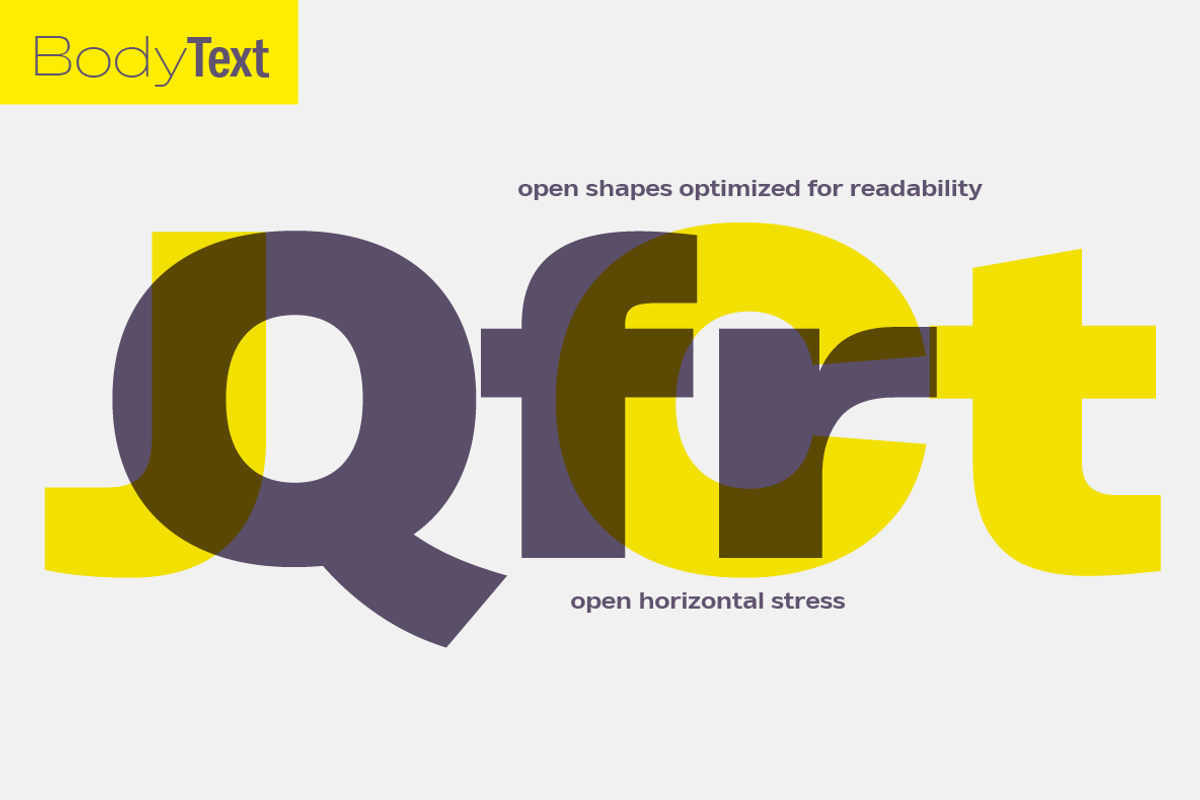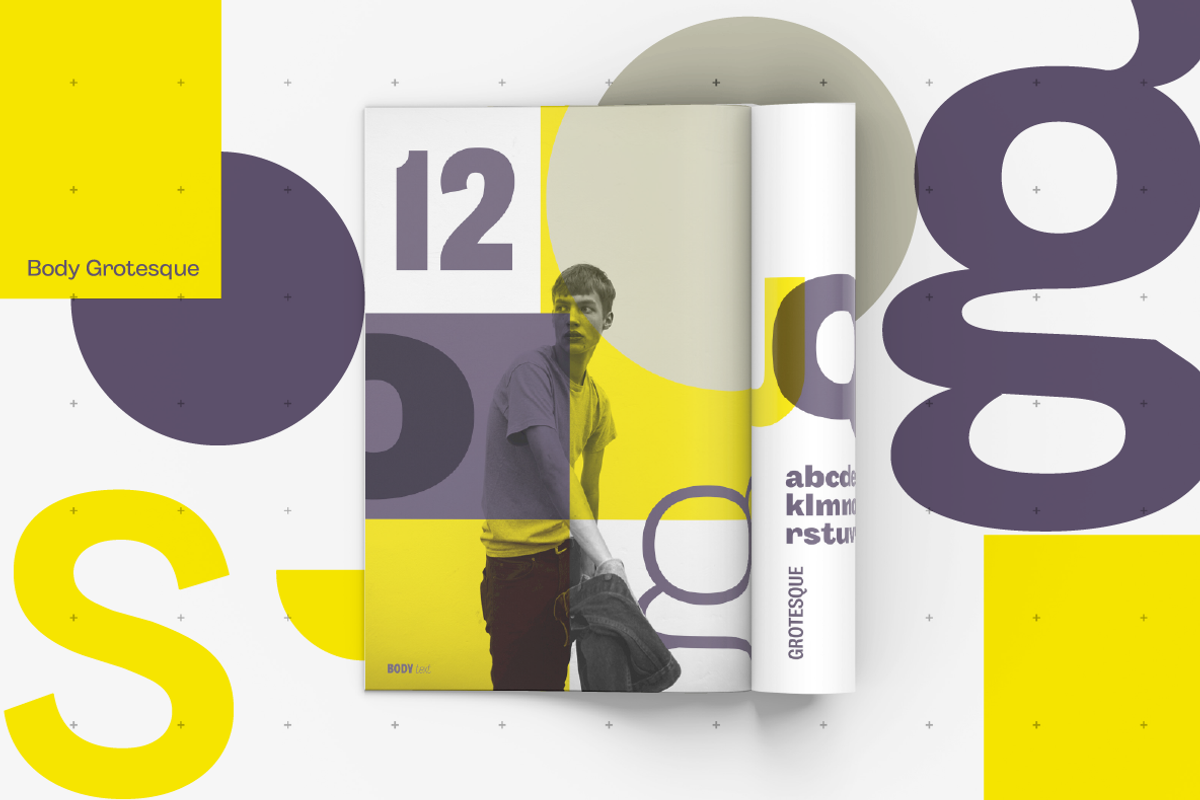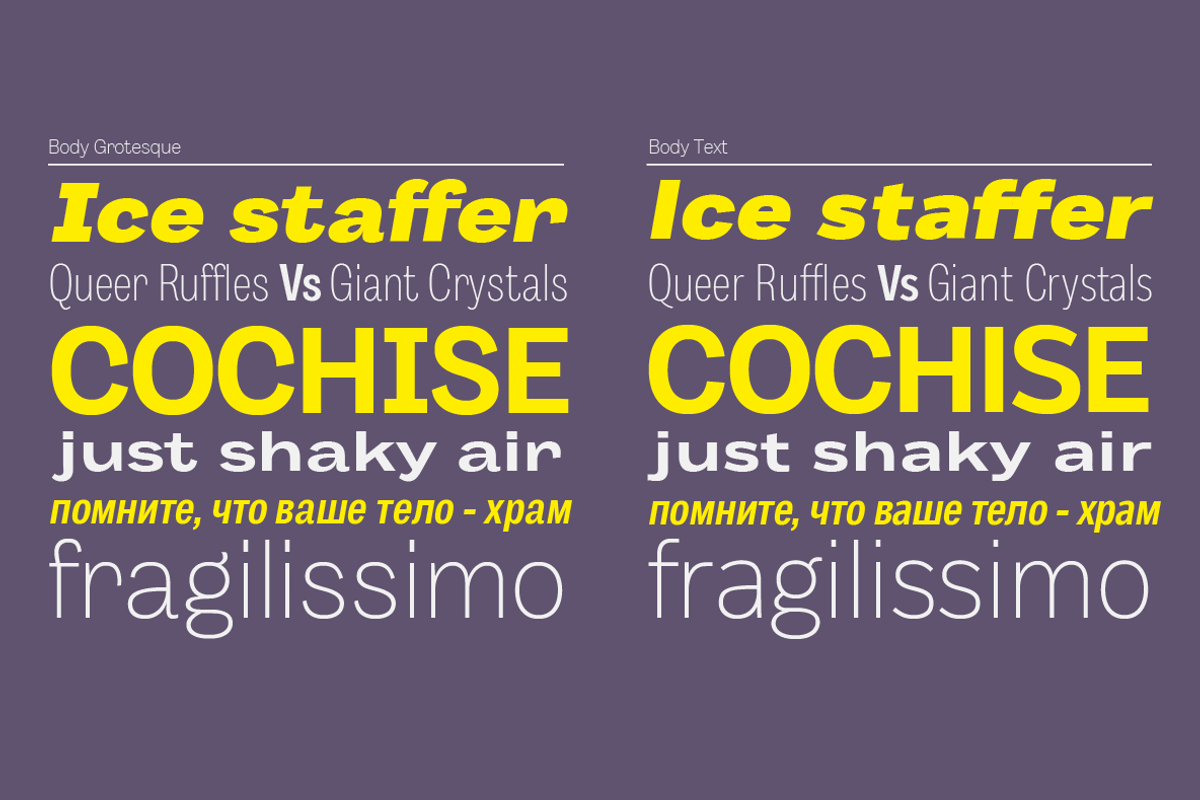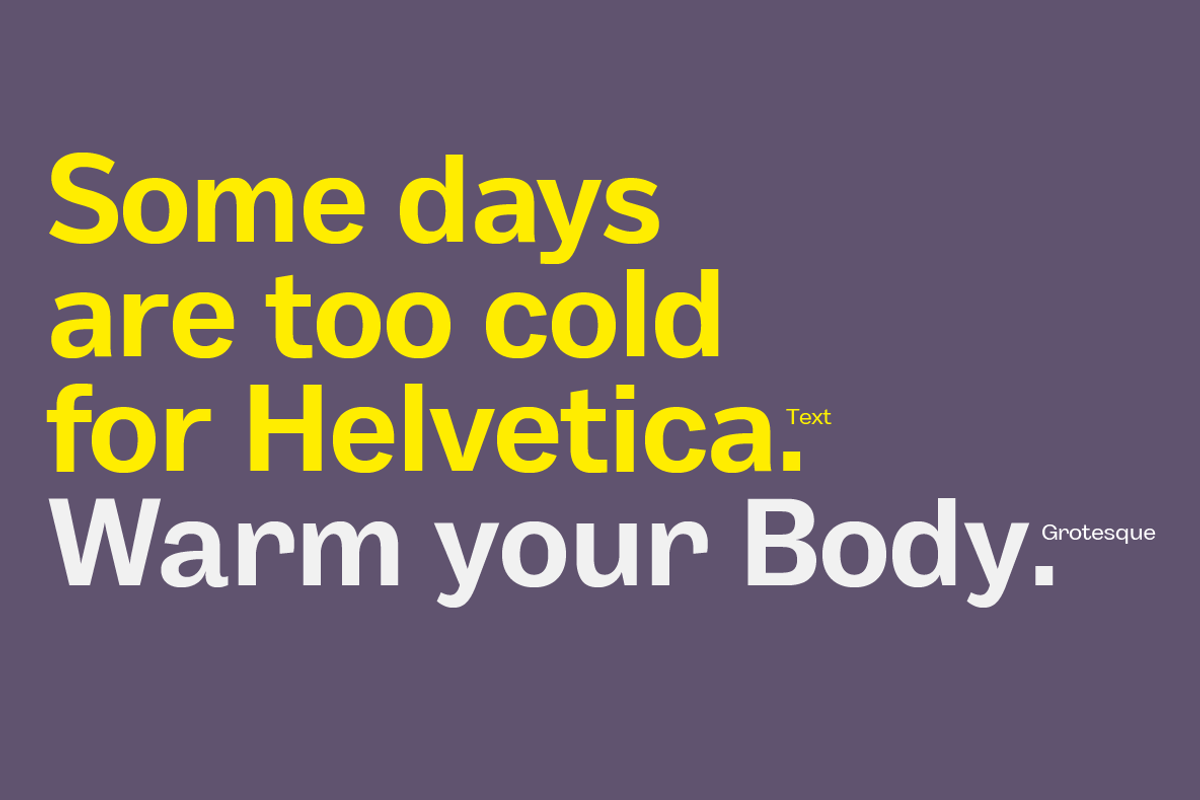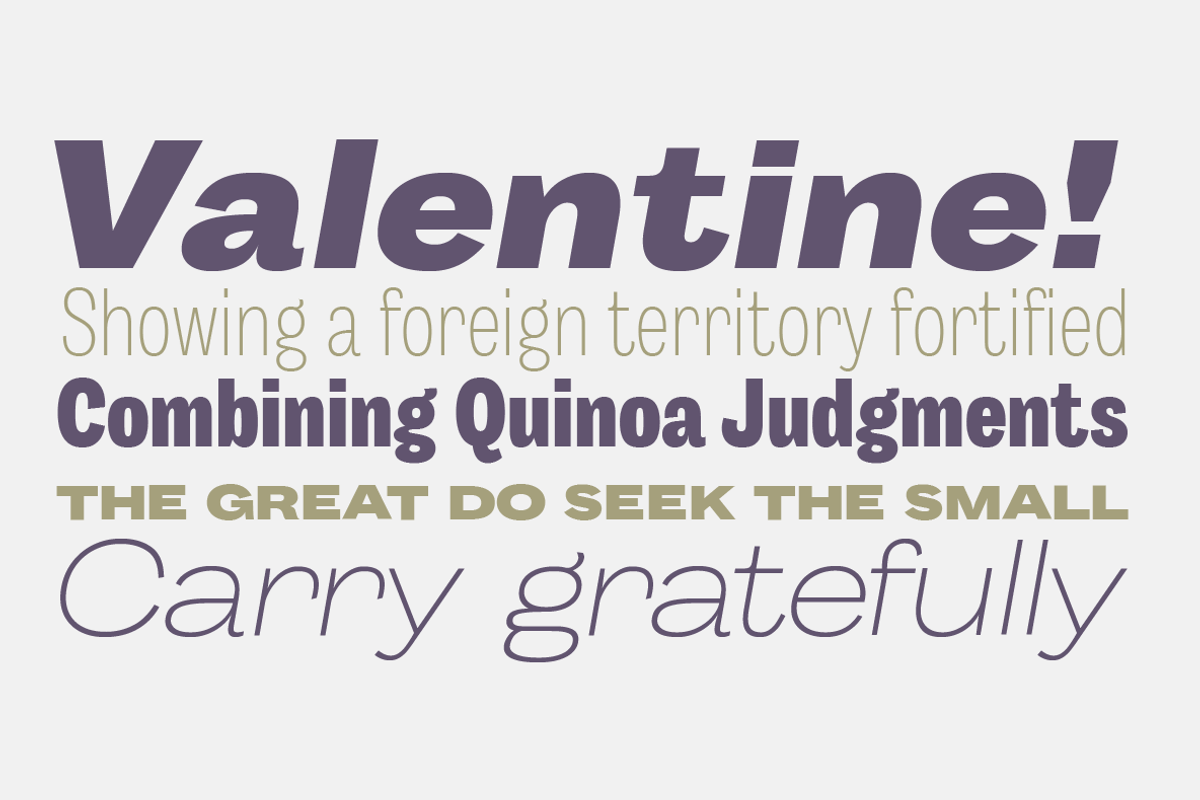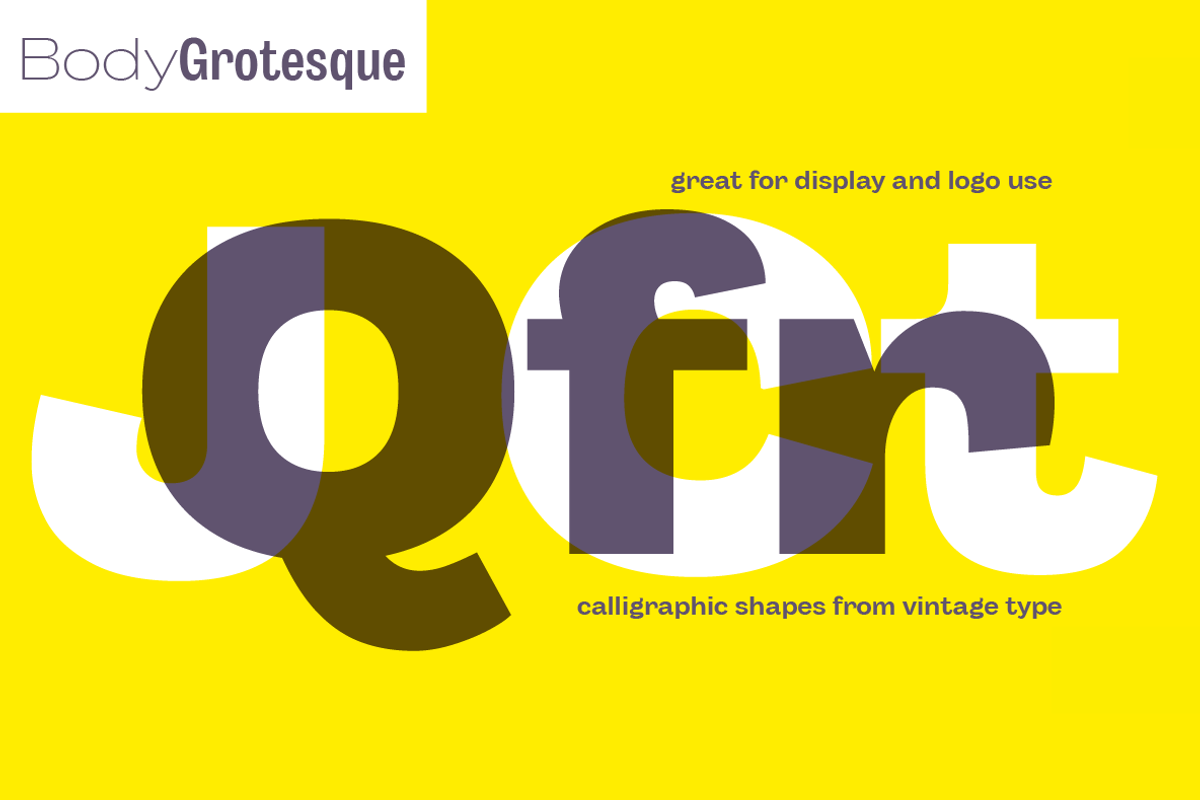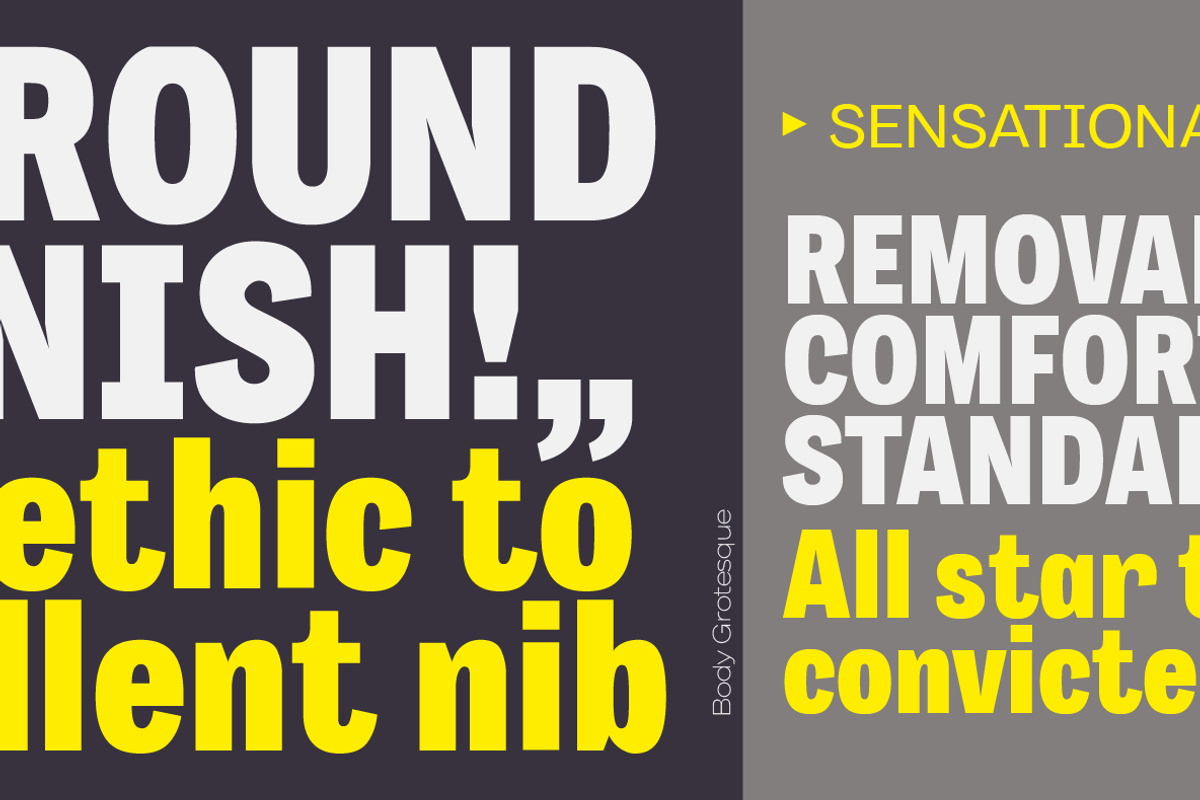
Body - 64 fonts
Body is a type family designed for Zetafonts by Cosimo Lorenzo Pancini with Andrea Tartarelli. Conceived as a contemporary alternative to modernist superfamilies like Univers or Helvetica, Body tries to maximize text readability while providing a wide range of options for the designer. It comes in two variants (Body Text and Body Grotesque), each in four widths and four weights: regular and bold for basic typesetting, light and extrabold for display use.
Body Grotesque applies to the sans serif modernist skeleton little imperfections and quirks inspired by our research in early 20th century type specimens. Curves are slightly more calligraphic and a light inverse contrast is applied to bold weights, giving the typeface a slight vintage appearance in display use.
Body Text, on the contrary, challenges the modernist aesthetics maximizing horizontal lines and using open terminals for letters like "s" and "a" that appear normally dark in modernist grotesques. For both variants, the normal width family is slightly condensed in an effort to maximize space usage; the Slim width is provided for extremely dense texts or side notes while the Fit width is optimized for display usage as in logos, headings or titles. The Large width manages to look elegant in its light weight while becoming a valid heading or subtitle font in its extrabold weights.
All the 64 fonts in the Body superfamily include a complete latin extended character set with small caps for over seventy languages, russian cyrillic, open type positional numbers, stylist sets and alternate forms.